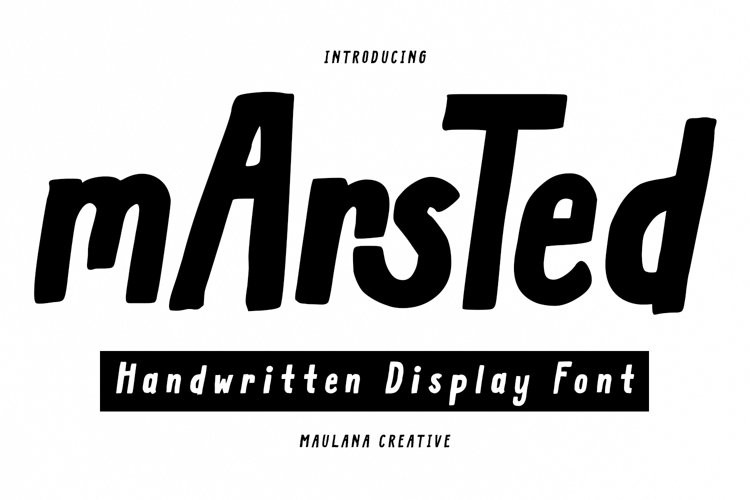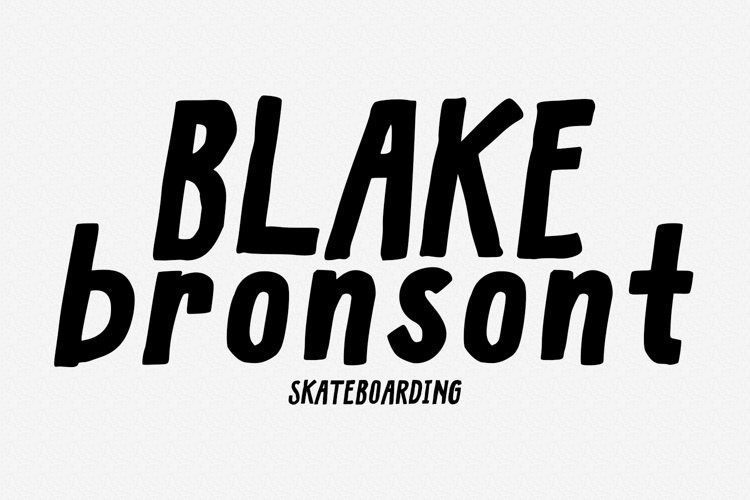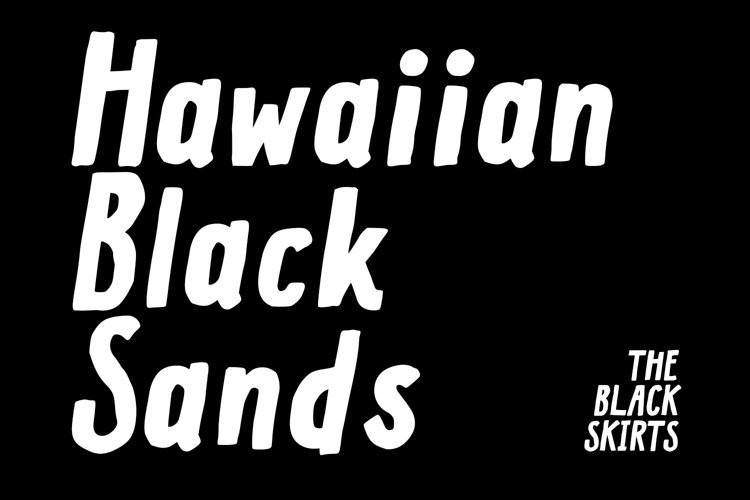
Marsted Font
Marsted FontMarsted is a casual handwritten slanted font. With medium stroke, fun character with a bit of ligatures and alternates. To give you an extra creative work. Marsted font support multilingual more than 100+ language. This font is good for logo design, Social media, Movie Titles, Books Titles, a short text even a long text letter and good for your secondary text font with sans or serif. Make a stunning work with Marsted font.